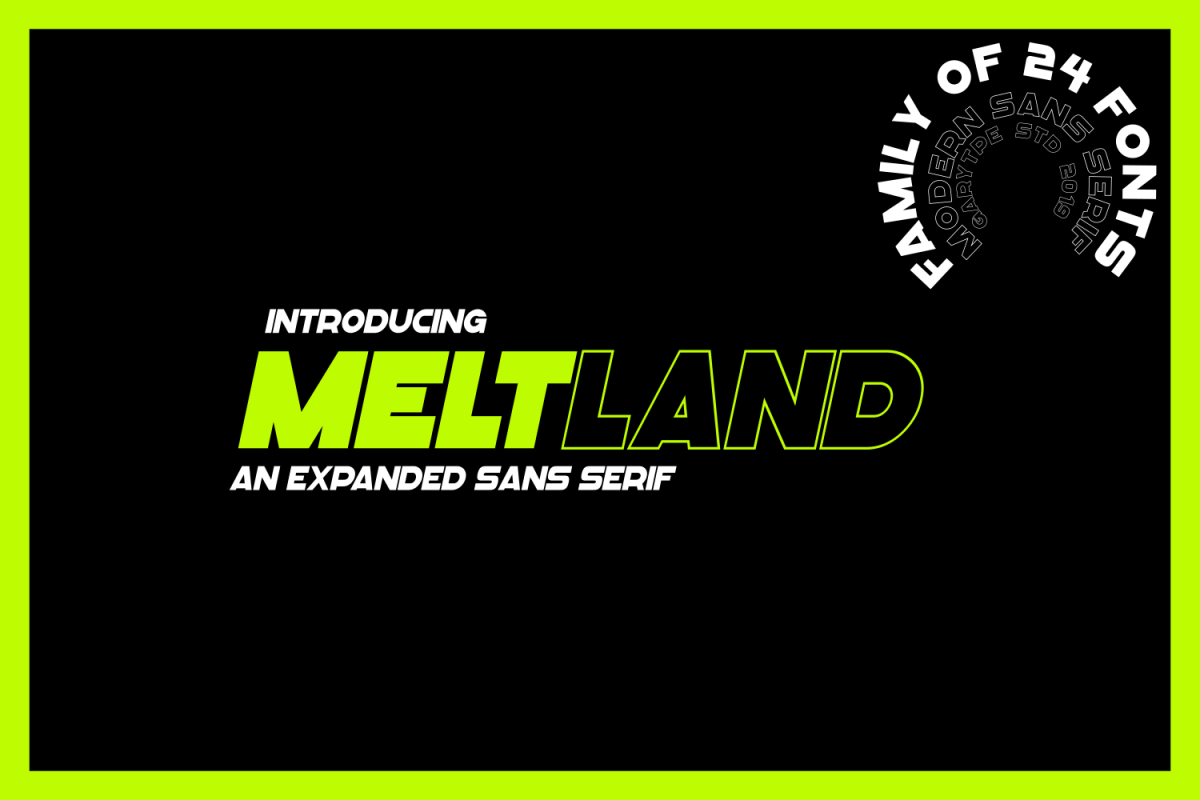
Meltland Font Family - "24 FONTS"
Hi Fellas ! Say Hi to Meltland,a font family with total of 24 Fonts. Which is very suitable for many needs like posters,magazine,headline,branding,etc.
Meltland also comes with uppercase, lowercase, numerals, accents (Multilingual characters), punctuations and PUA Encoded Characters !.